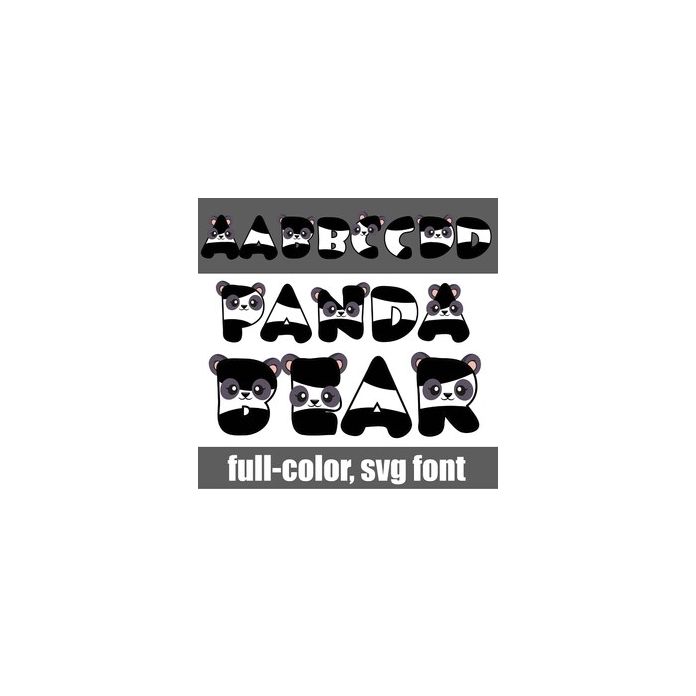
This full-color font features spotted lettering with panda faces on the uppercase. There is an alt case w/ additional colors you can access through your system or Silhouette's glyph map.